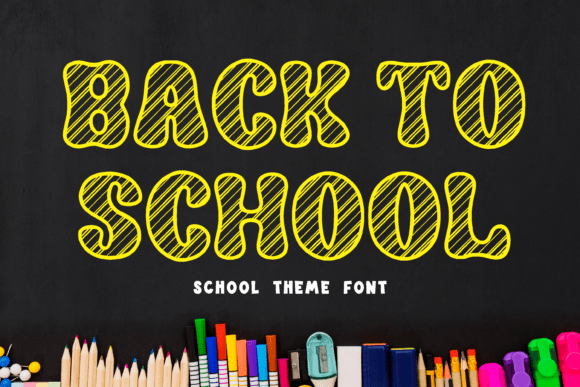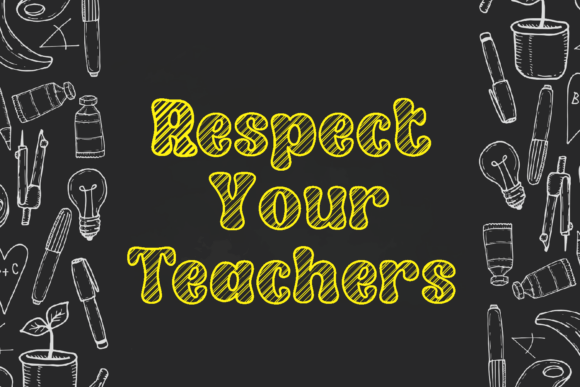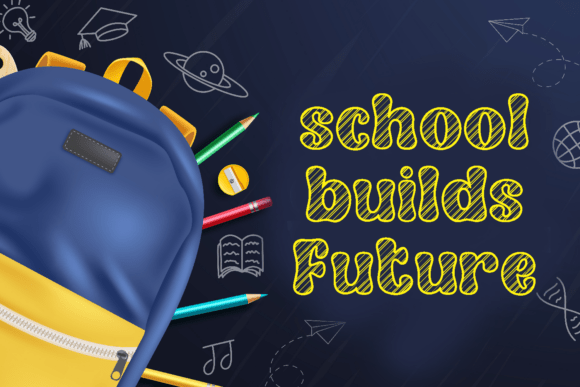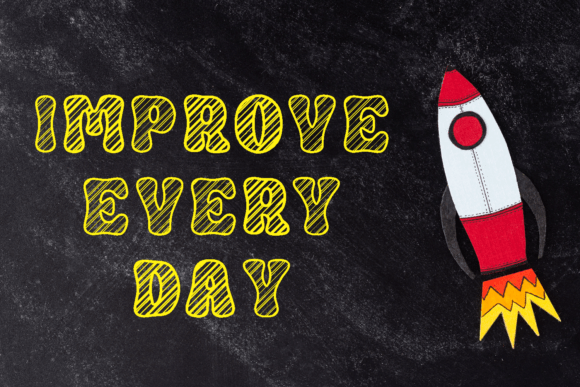
Back to School Font
Introducing “BACK TO SCHOOL”, a playful and nostalgic chalk-style display font that brings the classroom to life! Designed to mimic the texture of real chalk on a blackboard, this font is perfect for evoking warm school memories and adding a handmade, friendly vibe to any project. With bold strokes and whimsical curves, it’s ideal for capturing attention and adding character.Whether you’re working on a school-themed bulletin board, educational worksheets, or a classroom poster, this font fits right in. Its charming hand-drawn feel makes it especially suitable for student name tags, teacher resources, and PTA event flyers. The font’s display nature ensures it stands out while still being easy to read, making it a great choice for both print and digital projects.But don’t stop at the classroom! “BACK TO SCHOOL” is also a great pick for kids’ books, birthday party invites, Easter baskets, or fun Cricut projects. It pairs wonderfully with cut files, embroidery designs, and DIY holiday crafts. Bring a little schoolhouse charm to your Thanksgiving menus, Christmas tags, spring signs, or summer scrapbook layouts—the creative possibilities are endless.Crafted with versatility in mind, this font is ideal for every season—spring, summer, autumn, or winter—and any celebration. Use it for personalized SVGs, cute craft fair signage, or even seasonal decor pieces. Its textured, chalk-like strokes give each design a warm, handmade aesthetic that audiences of all ages will love.Ready to go back to school in style? Download “BACK TO SCHOOL” today and add a touch of chalkboard magic to your next project!